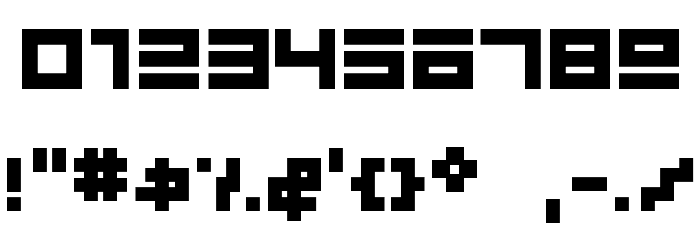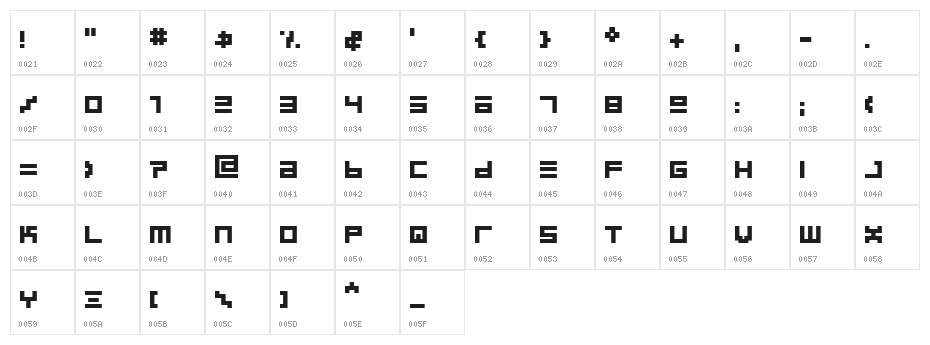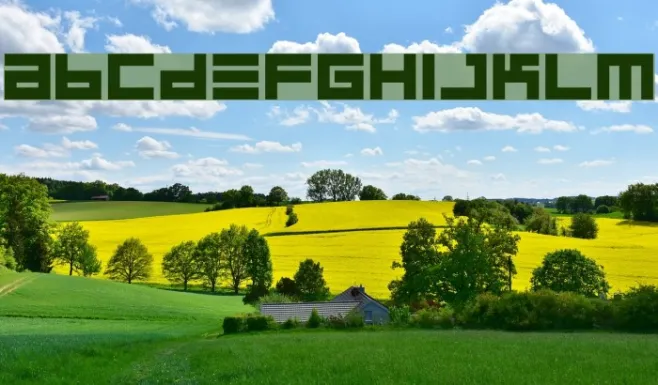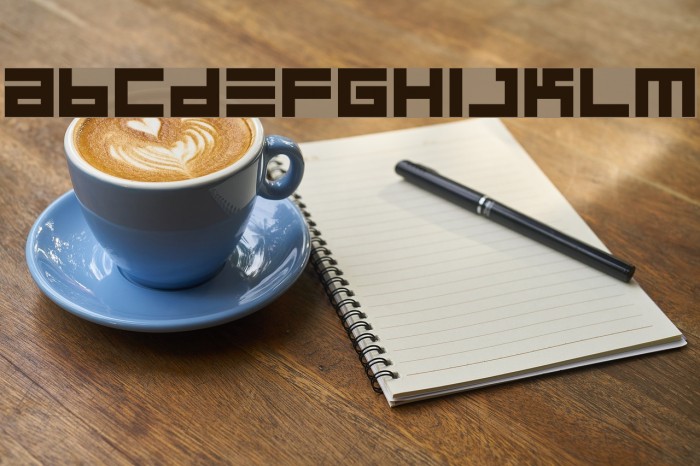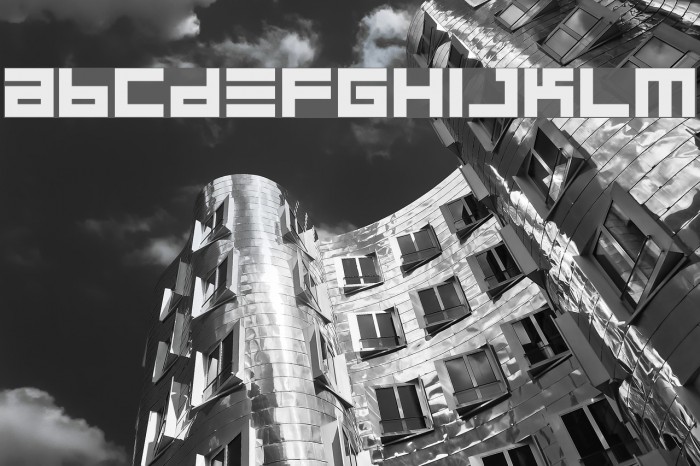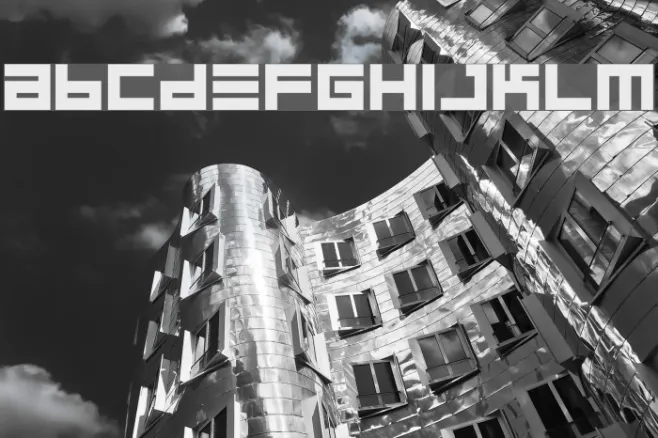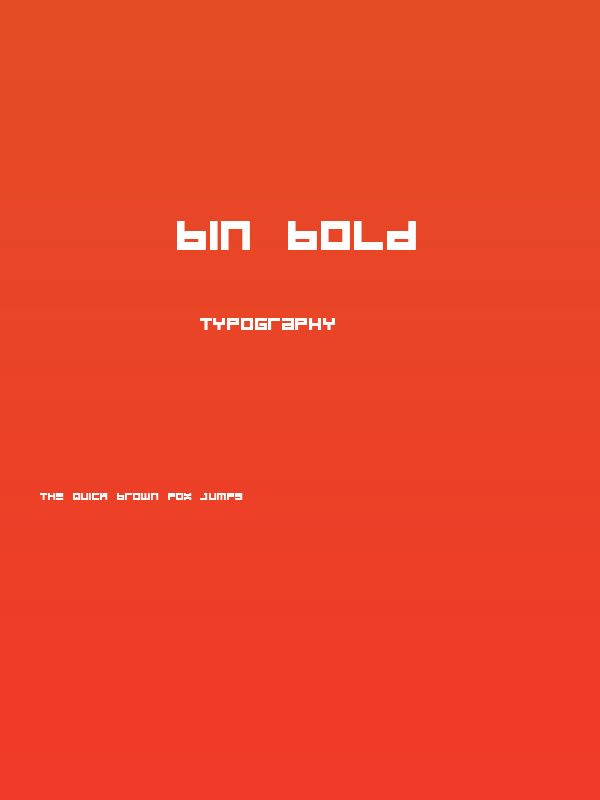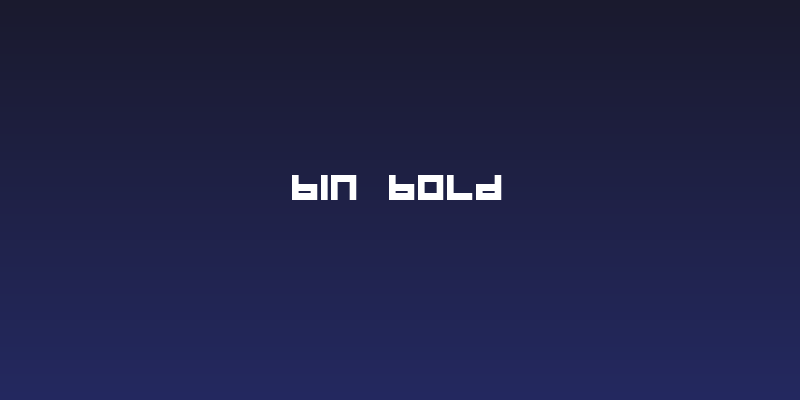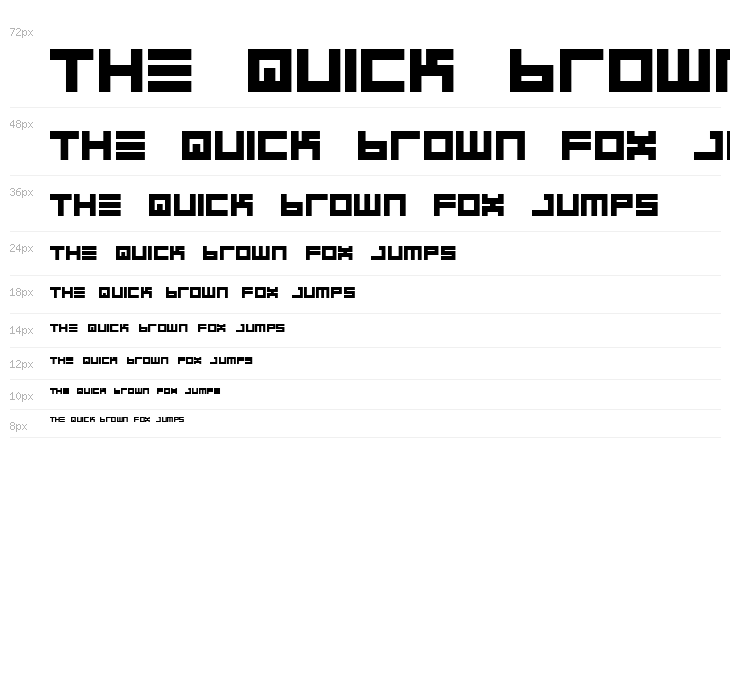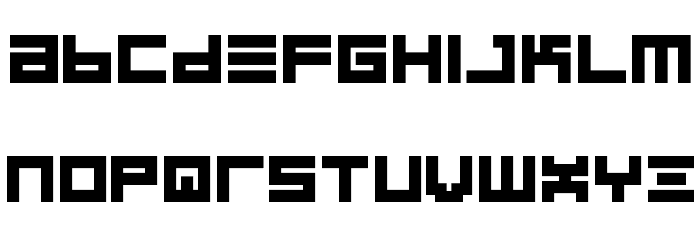
BIN Bold Font
BIN Bold Description
This font features a bold, geometric design with a distinctly digital aesthetic. Each character is constructed with sharp, angular lines and uniform stroke widths, giving it a blocky, pixelated appearance reminiscent of early computer graphics. The uppercase and lowercase letters maintain a consistent height, contributing to a monospaced feel, though the font is not strictly monospaced. The numerals and special characters follow the same design principles, ensuring a cohesive look across all glyphs. The font's style is modern and futuristic, making it ideal for tech-related projects or any design that requires a digital or retro-futuristic vibe.